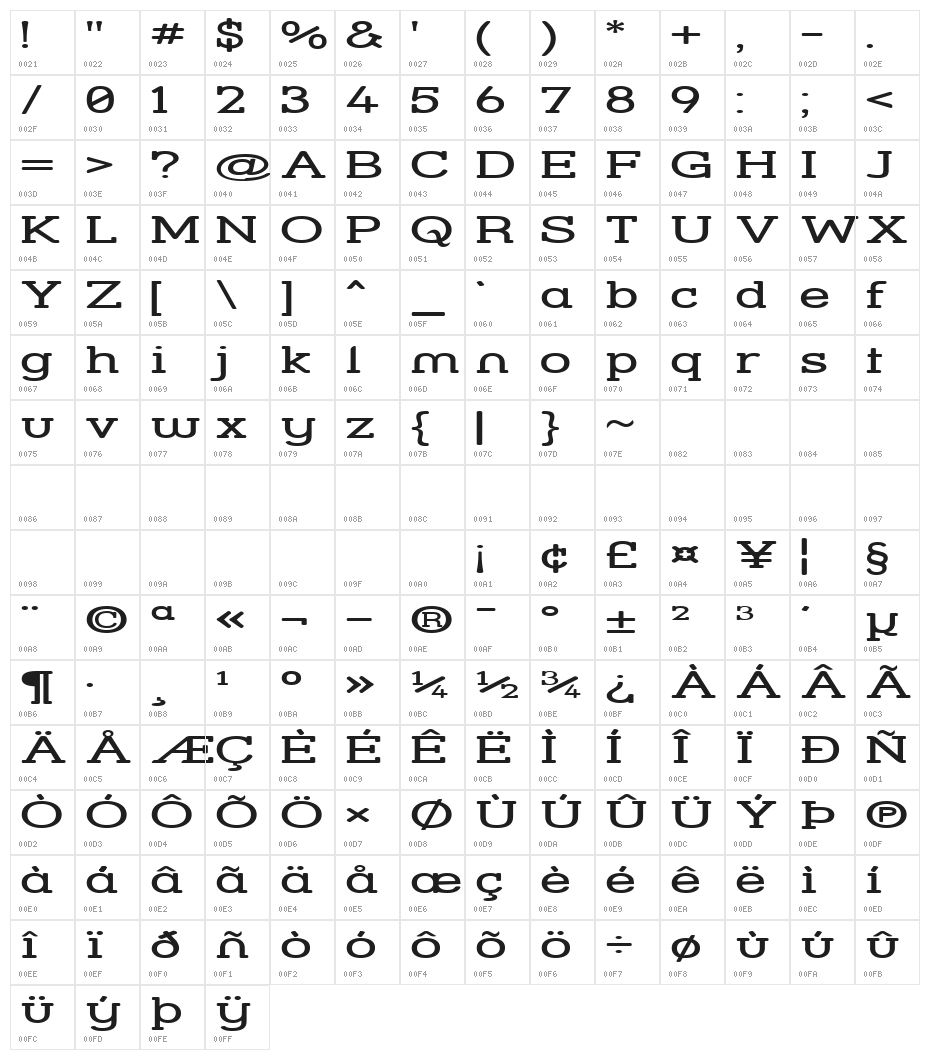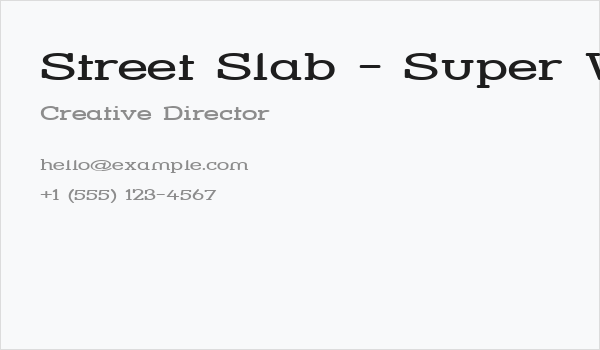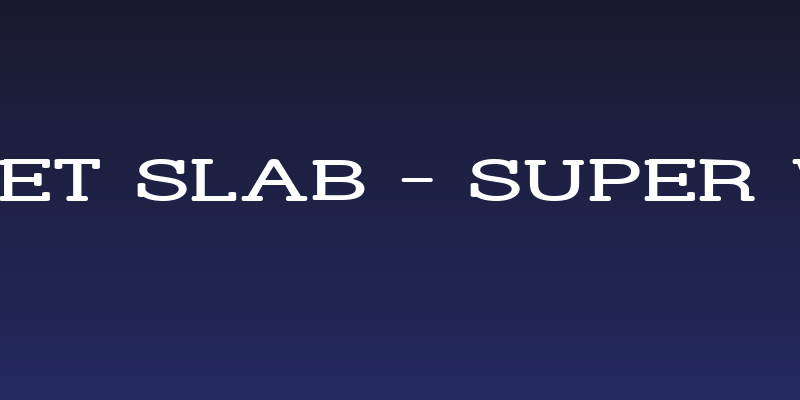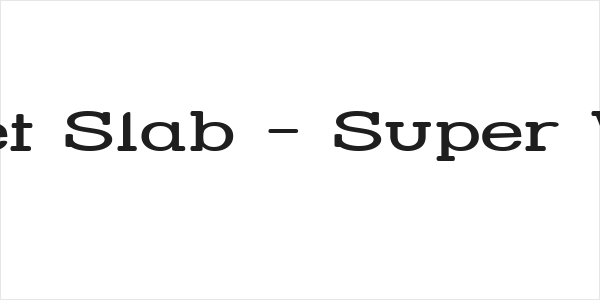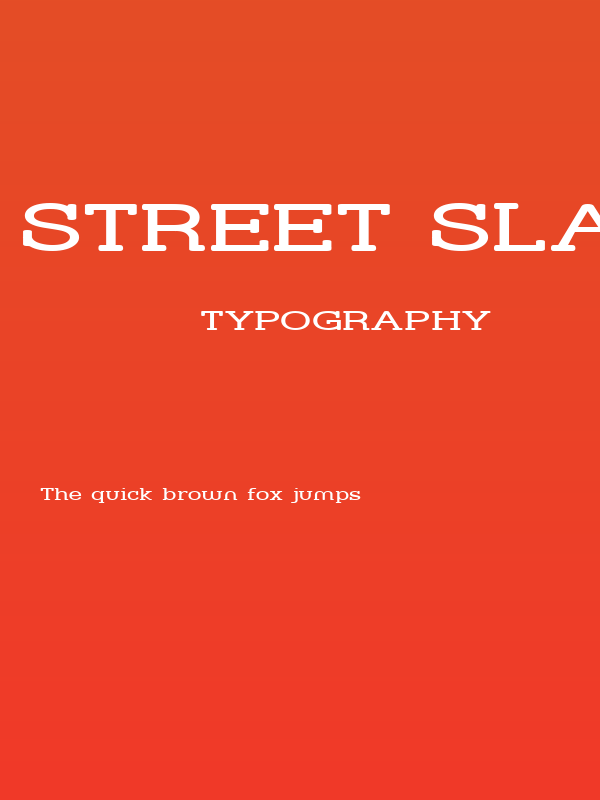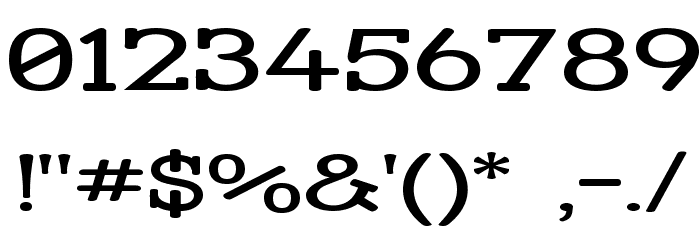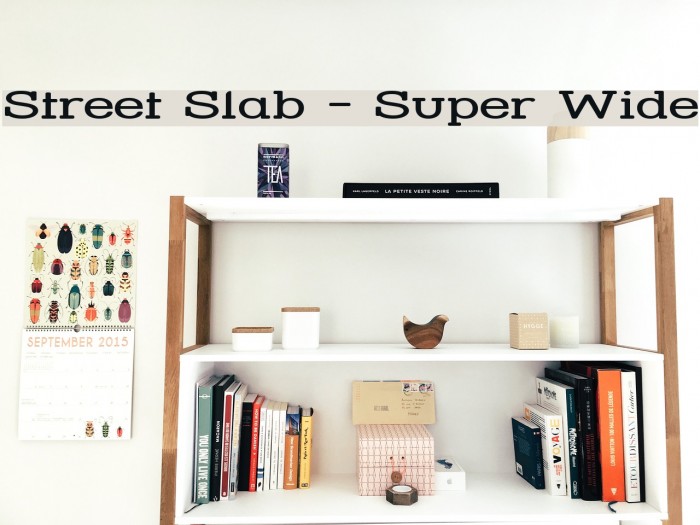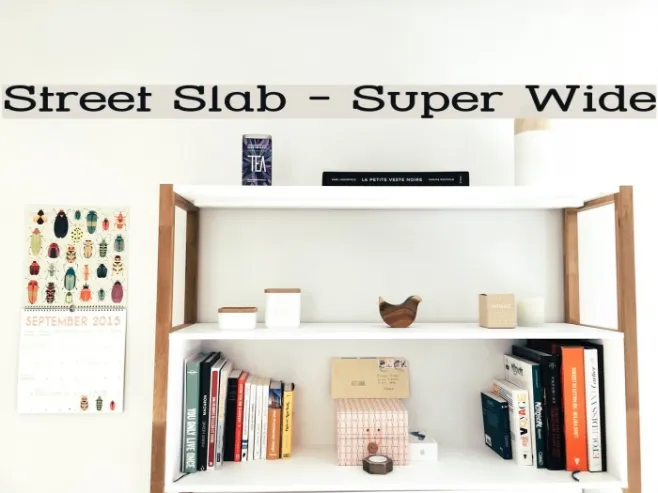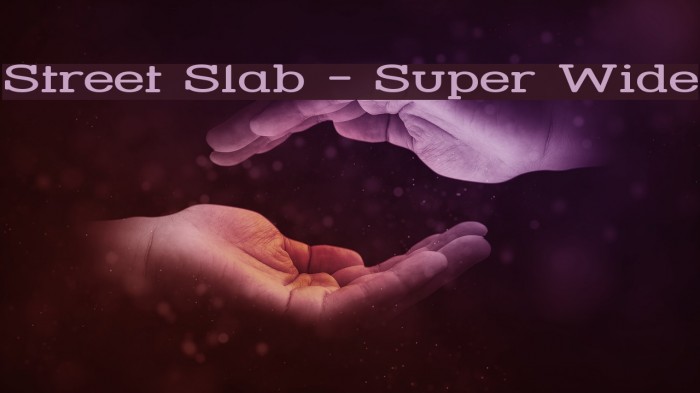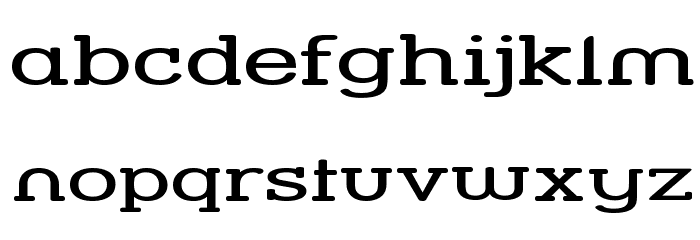
Street Slab - Super Wide Font
Street Slab - Super Wide Description
This font features a bold and robust slab serif style with wide, block-like characters. The strokes are consistent in thickness, providing a uniform appearance that enhances readability. The serifs are prominent and squared, adding a touch of strength and stability to the overall design. The characters are generously spaced, contributing to its legibility even at smaller sizes. This font exudes a modern yet timeless appeal, making it versatile for various design applications. Its clean lines and structured form make it ideal for projects that require a strong visual impact.
| Width | Expanded |
| Use Case | Headlines, Logos, Signage |
| Proposed Projects | Ideal for headlines, posters, branding, and signage where a strong, impactful presence is needed. |